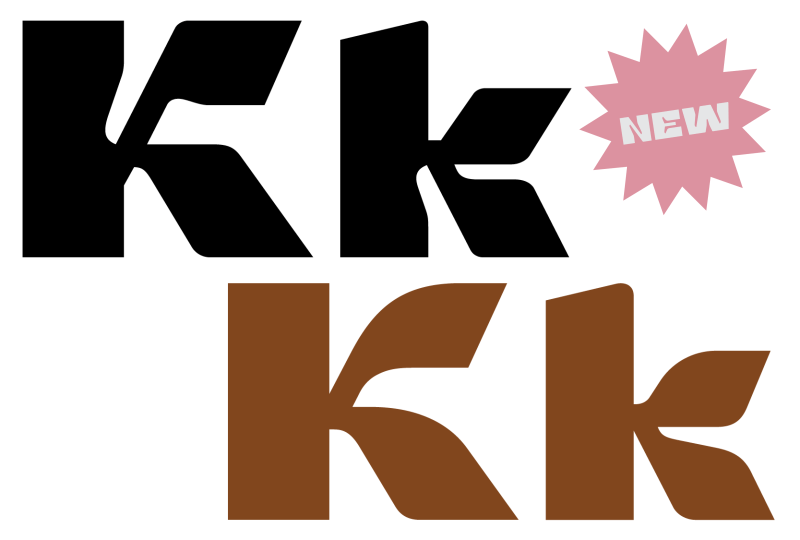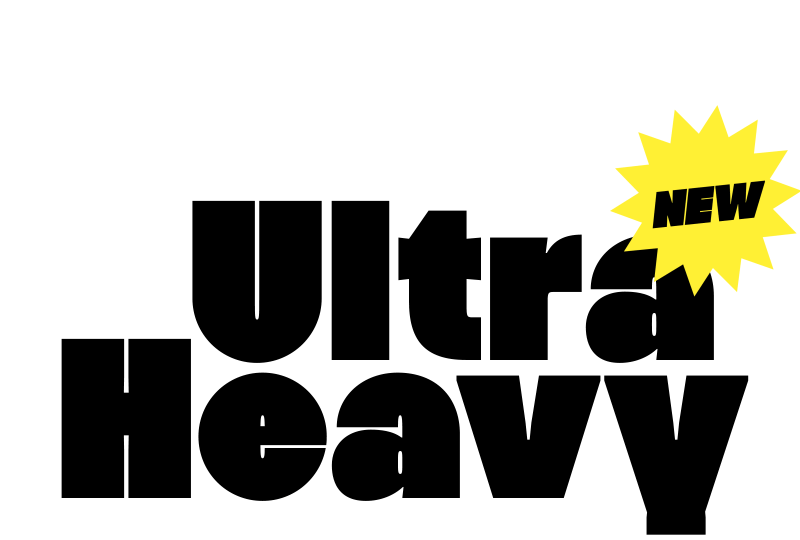
4 years of sweat – beach towel series and matching refreshment towels, set in our typeface Anaïs.
Three years NEW LETTERS – ride into tomorrow with our Rois patches! Comes with corresponding flyer.
Freya is inspired by classic Antiqua serif typefaces such as the famous „Caslon“ or „Didot“ which are almost three decades old. With great attention to detail and an unique approach, Freya is a modern interpretation of an old classic with its very own personality.
Two years NEW LETTERS. We are celebrating this with an add on to the Mériva family – Mériva Mono and corresponding pins. Comes in a velvet bag.
Theodor is a commissioned typeface for the gallery and website Wessinger & Peng.
Basis for Theodor was the former corporate typeface of W&P, which was optimized and characterized. In addition, it has a high recognition value and function as a display font.
Over a year of development we finally present Mériva, a grotesque family including 9 cuts, from Light Condensed to Extended, with corresponding Italics. In order to achieve the best performance, each style has been drawn individually – but each style is still related to the family.